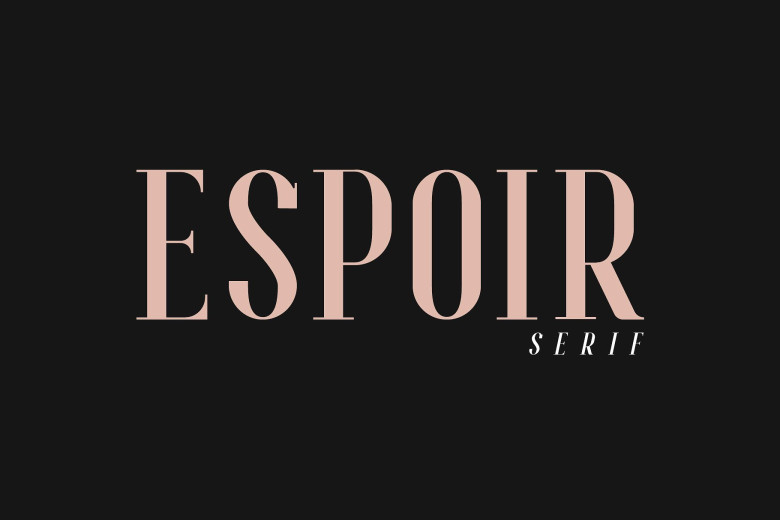
Espoir Serif Font Family
A high contrast serif typefamily. It will fit all your design projects. Introducing Espoir Font. Espoir Serif Font Family is a modern serif font family whose design refers us to the style of transitional serifs. The distinctive features of Espoir Serif Font Family are the relatively low contrast of strokes, the slightly squarish shapes of round characters and the emphasized businesslike nature.